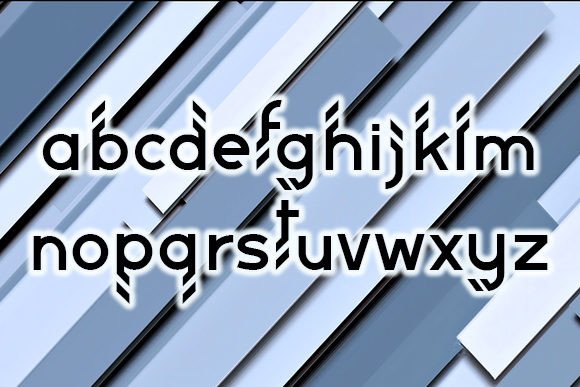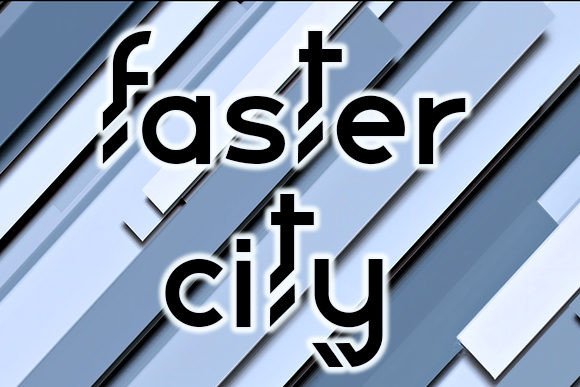
Introduction to Schacher Font
Have you ever been working on a creative project and suddenly, the perfect font just clicks into place? For designers, that ‘aha’ moment is pure magic. It’s the moment when your entire design starts to come together, and you know you’ve found the perfect high-quality font to elevate your work. That’s exactly what the Schacher Font does – it adds an extra layer of sophistication to any design, making it stand out in a crowd.
As a valuable design resource, the Schacher Font is perfect for designers looking to create stunning visuals for their next project. Whether you’re working on a flyer, poster, or even a simple t-shirt design, this font is sure to make a statement. With its unique style and free download option, it’s no wonder the Schacher Font has become a go-to choice for designers everywhere.
Key Features of Schacher Font
- High-quality design resource for creative projects, suitable for a wide range of applications.
- Designed to be versatile and stylish, making it an ideal choice for designers working on creative projects.
Honest Review: Schacher Font
I recently stumbled upon the Schacher Font, and I’m excited to share my thoughts on this design resource. As a designer, I’m always on the lookout for high-quality fonts that can elevate my creative projects. The Schacher Font definitely delivers.
What works well is its modern, sleek aesthetic that’s perfect for a wide range of design applications. The font is available for free download, which is a major plus. The transparent background is also a great touch, making it easy to use in various design contexts.
- ✨ High-quality design that’s perfect for modern creative projects
- ✨ Transparent background for easy use in various design contexts
One limitation of the Schacher Font is its limited character set. While it’s still a solid choice for many design applications, it may not be the best option for projects that require a wide range of characters.
Overall, I’m impressed with the Schacher Font. It’s a great addition to any designer’s toolkit, and its high-quality design and transparent background make it a valuable resource for any creative project.
Schacher Font
The Schacher Font is a versatile and high-quality design resource ideal for creative projects. It’s available for free download and features a transparent background, making it easy to integrate into various design applications.
The Schacher Font is suitable for a wide range of creative projects, including:
- Marketing materials, such as
The Schacher Font has a transparent background, making it ideal for use in creative projects where a clear background is necessary. This feature allows you to easily place the font over any background image or design element, giving you complete control over the final look of your project.